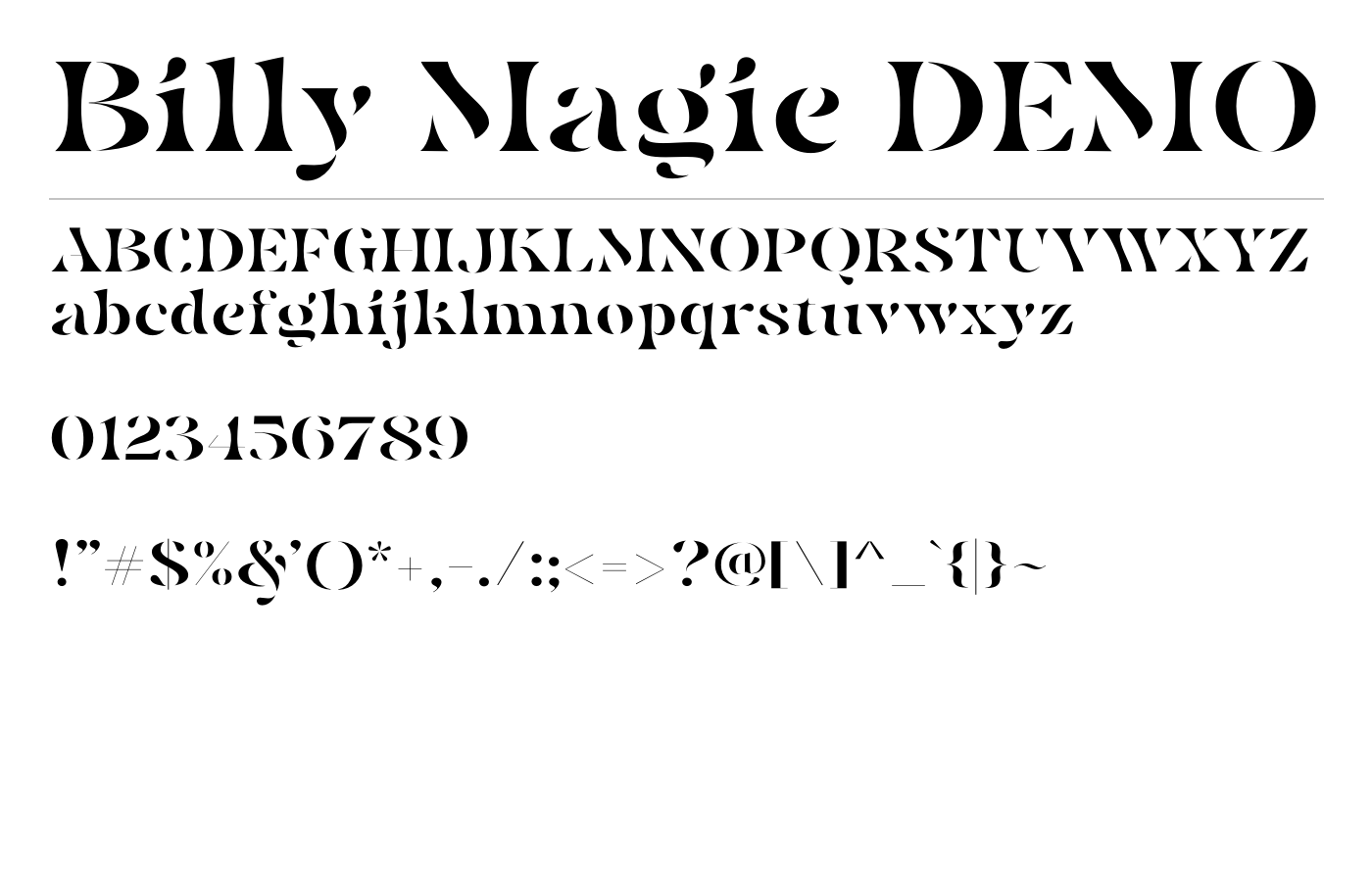
Billy Magie DEMO is an elegant serif font characterized by its high contrast between thick and thin strokes and unique, sharp stencil-like cuts within each letterform. Its moderate x-height and distinctive shapes give it a stylish, modern yet vintage feel, making it perfect for fashion branding, editorial headlines, and luxury packaging where a bold, artistic statement is desired. This font stands out with its dramatic flair, adding sophistication and creativity to any design needing a touch of refinement and visual impact.
Billy Magie DEMO Font
About Billy Magie DEMO Font
| Font family | Billy Magie DEMO Font |
| Designer | Sarid Ezra |